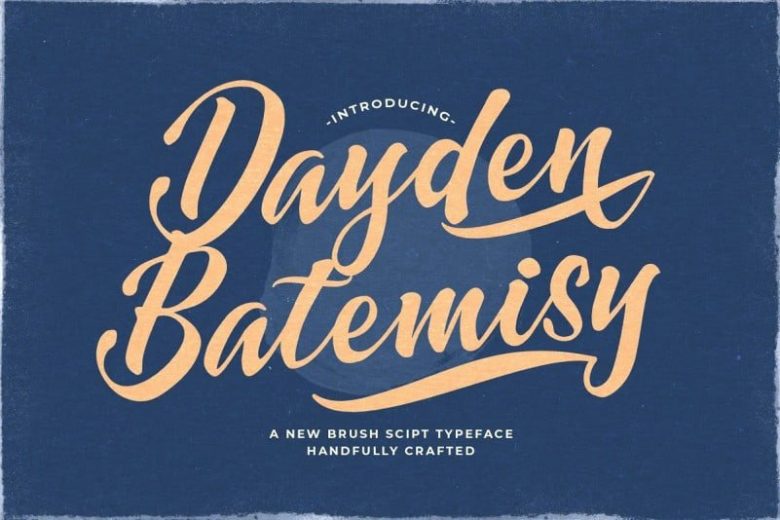
Dayden Batemisy Font
Dayden Batemisy Bold Script Font is a modern calligraphy typeface featuring basic variations, smooth lines, a classic and elegant touch. Get inspired by its unique and beautiful style and add it to your favorite designs! ideal for logos, apparel, quotes, product packaging, or anything which needs a typographic turbo-boost.